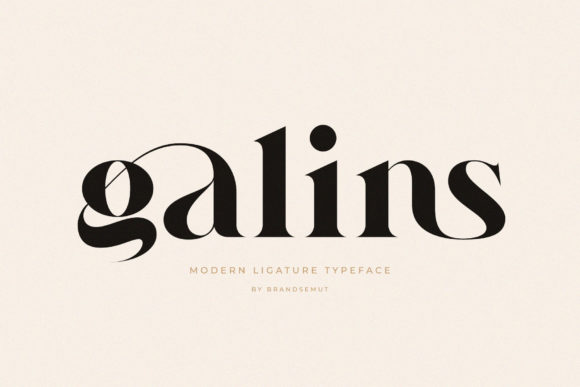
Unleash the power of expression with Galins Font, a modern and chic lettered serif font that will transform your online magazine into a visual masterpiece. Immerse yourself in the world of elegance and sophistication as this font captivates your audience with its timeless beauty.
With Galins Font, you hold the key to unlocking a world of creative possibilities. Its versatile nature seamlessly adapts to any topic, making it the perfect companion for your online magazine. Whether you're crafting captivating headlines, weaving enchanting stories, or presenting insightful articles, Galins Font will elevate your content to new heights.
Experience the allure of perfectly crafted letterforms, meticulously designed to evoke a sense of sophistication and grace. Each character dances across the page, inviting readers on a journey of discovery and engagement. Let Galins Font be your muse, inspiring you to create content that resonates with your audience, leaving a lasting impression on their minds.
Galins Font is not just a font; it's an investment in the success of your online magazine. Its timeless design transcends trends, ensuring that your content remains relevant and captivating for years to come. Embrace the power of this remarkable font and witness the transformation of your online magazine into a true work of art.
So, embark on this creative adventure with Galins Font and let your words dance with newfound elegance and charm. Allow your online magazine to shine brighter than ever before, captivating readers with every story you tell.